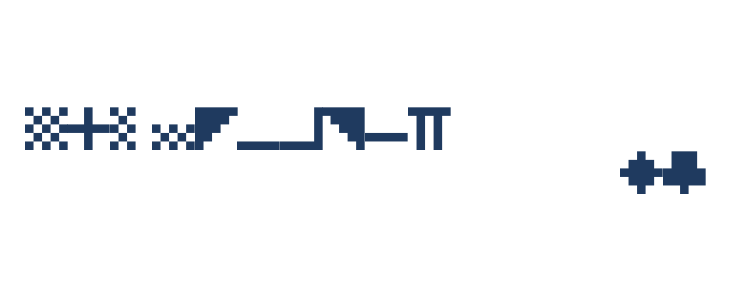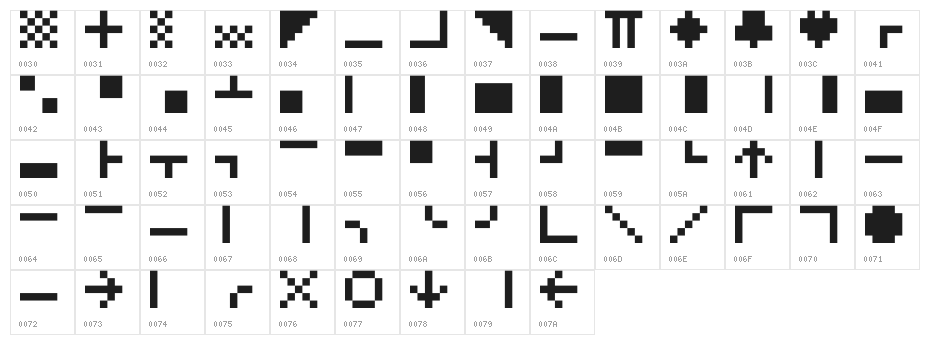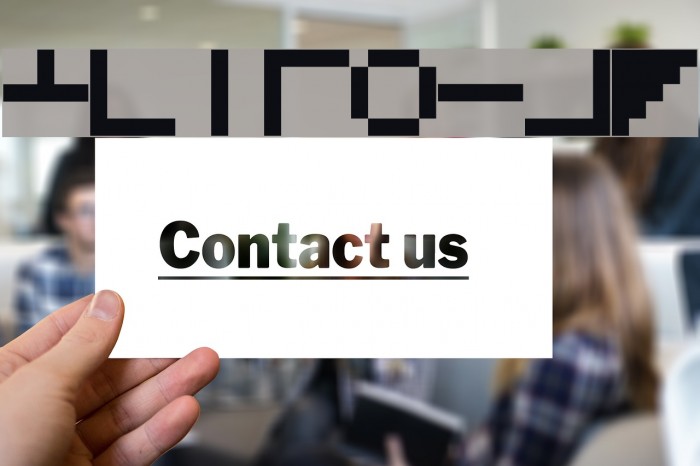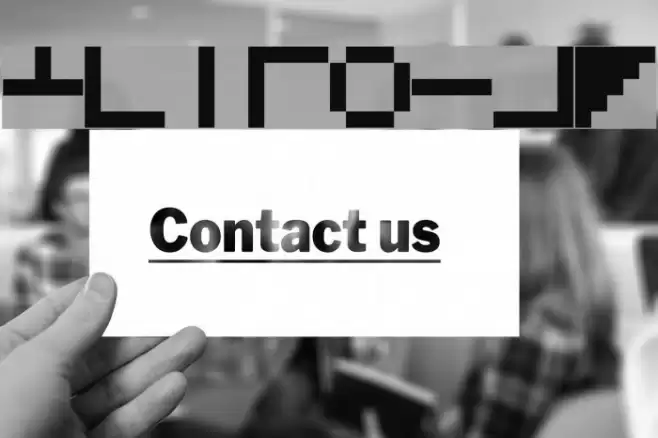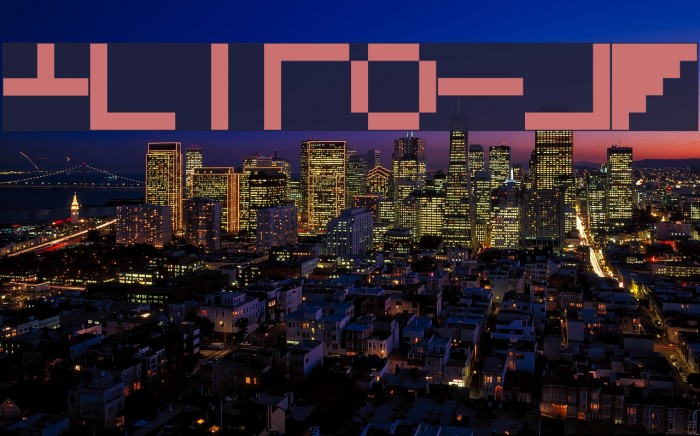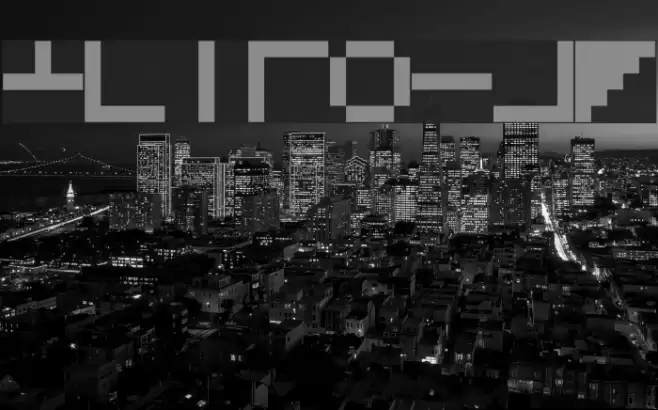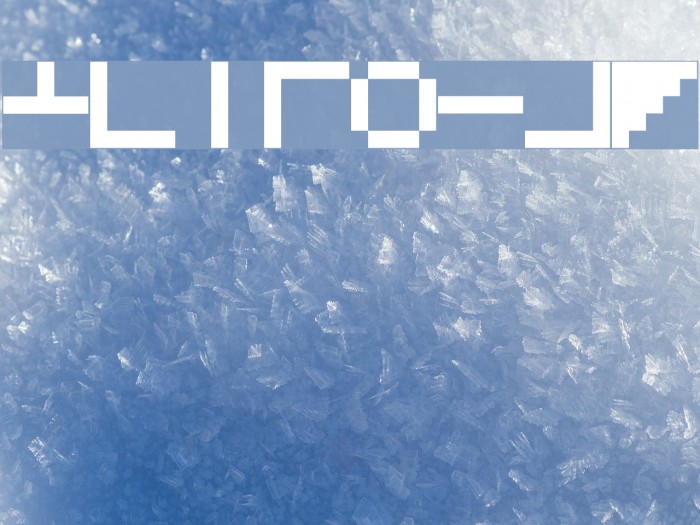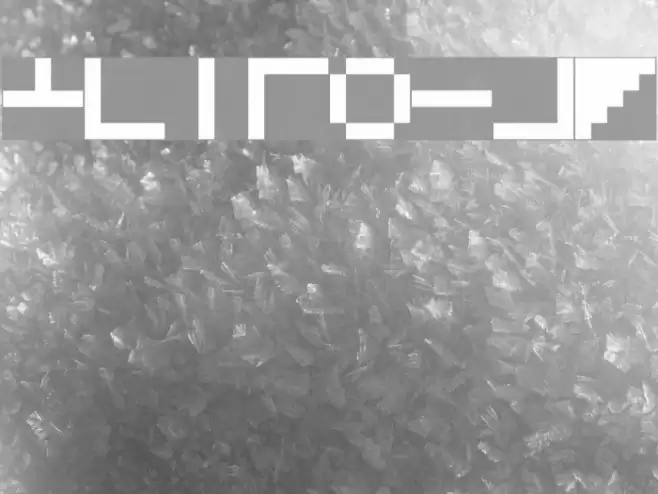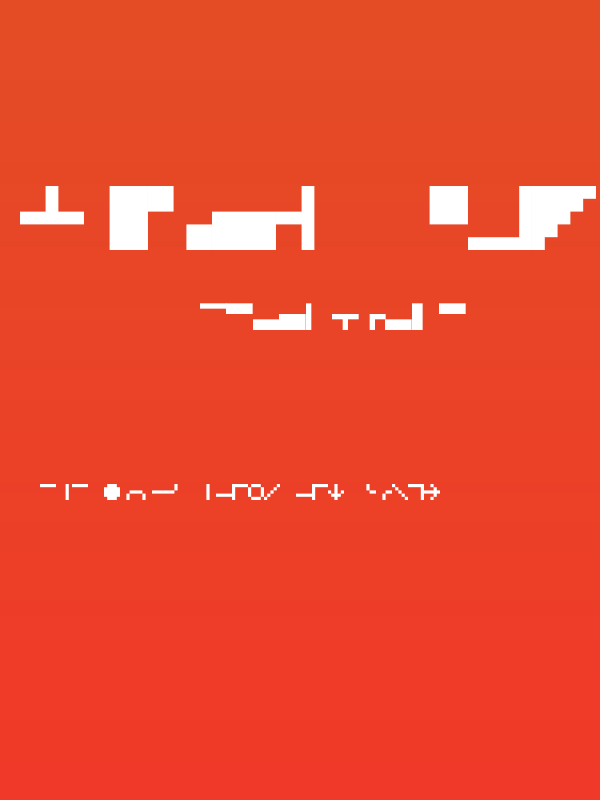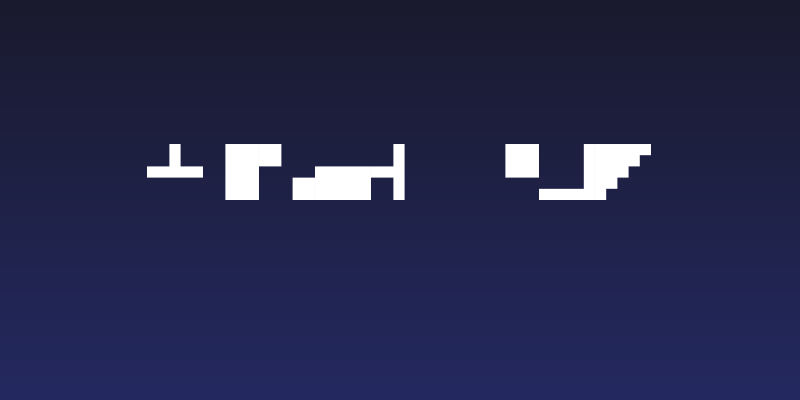
Elbow-c64 Font
Elbow-c64 Description
This font is a pixelated, retro-style typeface reminiscent of early computer and video game graphics. Each character is constructed using a grid-like pattern, giving it a blocky and angular appearance. The design is highly geometric, with sharp edges and a uniform structure across all characters. This style evokes a sense of nostalgia for the 8-bit and 16-bit eras of digital design. The font's simplicity and clarity make it suitable for digital displays and projects that aim to capture a vintage tech aesthetic.
| Use Case | Logos, Digital displays, Posters |
| Proposed Projects | Ideal for retro video game designs, digital art projects, tech-themed posters, and any creative work that seeks to evoke a nostalgic digital feel. |